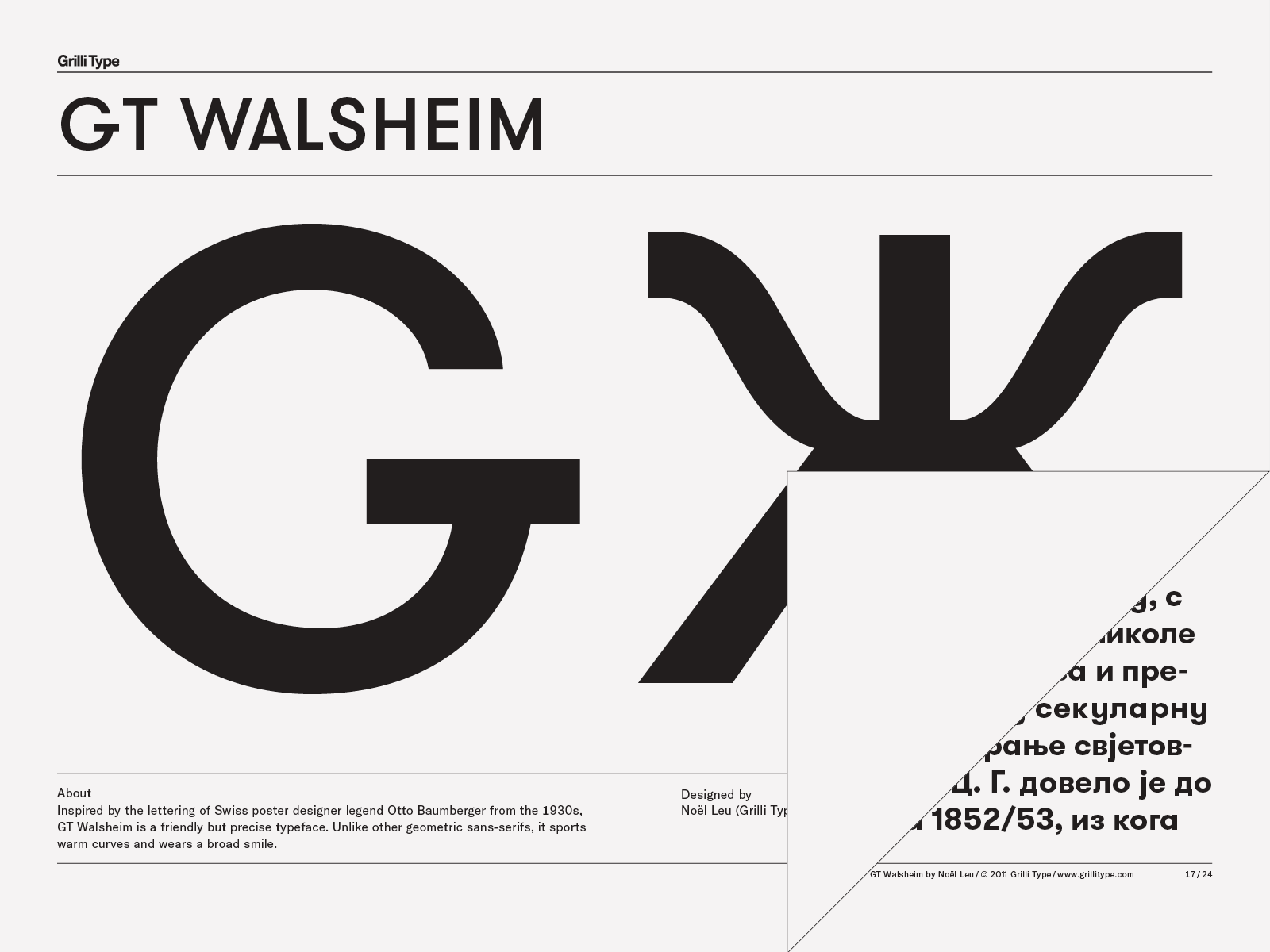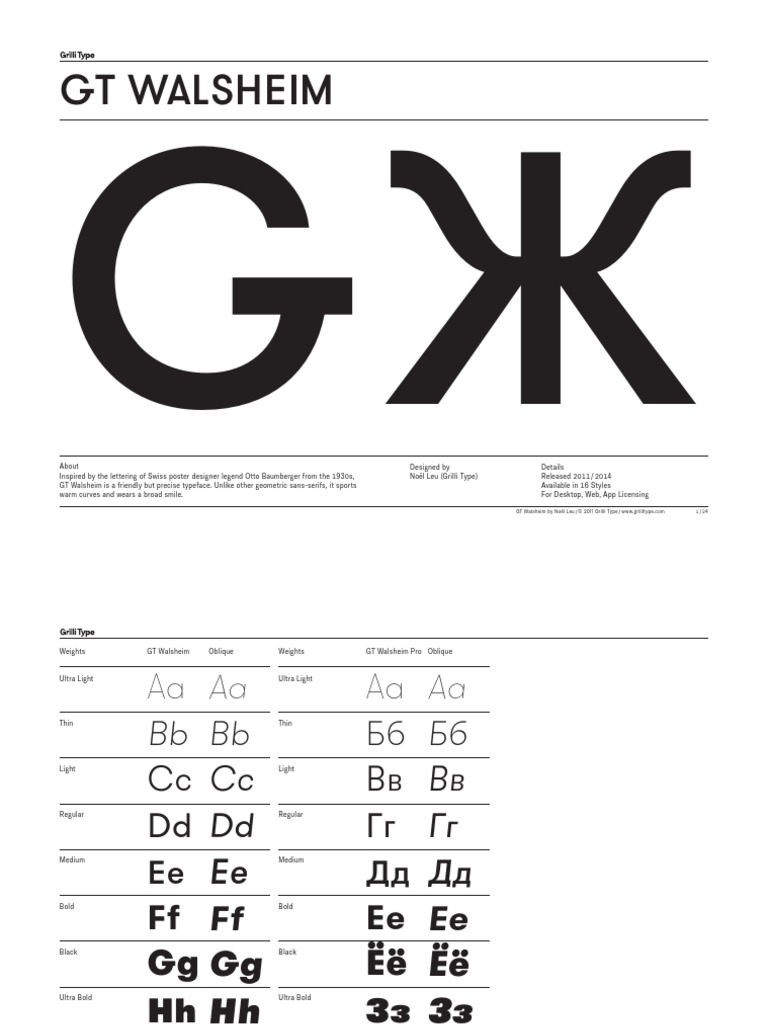
Gt Walsheim Font
Gt Walsheim Font - Web gt walsheim pro font family is a display typeface created by noel leu that can be used on any device. Web this website introduces the refreshed gt walsheim typeface family and highlights baumberger’s beautiful poster designs. Inspired by the lettering of swiss poster designer legend. Inspired by the lettering of swiss poster designer legend.
Inspired by the lettering of swiss poster designer legend. Web this website introduces the refreshed gt walsheim typeface family and highlights baumberger’s beautiful poster designs. Web gt walsheim pro font family is a display typeface created by noel leu that can be used on any device.
Inspired by the lettering of swiss poster designer legend. Web gt walsheim pro font family is a display typeface created by noel leu that can be used on any device. Inspired by the lettering of swiss poster designer legend. Web this website introduces the refreshed gt walsheim typeface family and highlights baumberger’s beautiful poster designs.
Inspired by the lettering of swiss poster designer legend. Web this website introduces the refreshed gt walsheim typeface family and highlights baumberger’s beautiful poster designs. Web gt walsheim pro font family is a display typeface created by noel leu that can be used on any device. Inspired by the lettering of swiss poster designer legend.
Web gt walsheim pro font family is a display typeface created by noel leu that can be used on any device. Web this website introduces the refreshed gt walsheim typeface family and highlights baumberger’s beautiful poster designs. Inspired by the lettering of swiss poster designer legend. Inspired by the lettering of swiss poster designer legend.
Web gt walsheim pro font family is a display typeface created by noel leu that can be used on any device. Inspired by the lettering of swiss poster designer legend. Web this website introduces the refreshed gt walsheim typeface family and highlights baumberger’s beautiful poster designs.
Web this website introduces the refreshed gt walsheim typeface family and highlights baumberger’s beautiful poster designs. Inspired by the lettering of swiss poster designer legend. Web gt walsheim pro font family is a display typeface created by noel leu that can be used on any device.
Inspired by the lettering of swiss poster designer legend. Web this website introduces the refreshed gt walsheim typeface family and highlights baumberger’s beautiful poster designs. Web gt walsheim pro font family is a display typeface created by noel leu that can be used on any device. Inspired by the lettering of swiss poster designer legend.
Web gt walsheim pro font family is a display typeface created by noel leu that can be used on any device. Web this website introduces the refreshed gt walsheim typeface family and highlights baumberger’s beautiful poster designs. Inspired by the lettering of swiss poster designer legend. Inspired by the lettering of swiss poster designer legend.
Web gt walsheim pro font family is a display typeface created by noel leu that can be used on any device. Inspired by the lettering of swiss poster designer legend. Web this website introduces the refreshed gt walsheim typeface family and highlights baumberger’s beautiful poster designs. Inspired by the lettering of swiss poster designer legend.
Web this website introduces the refreshed gt walsheim typeface family and highlights baumberger’s beautiful poster designs. Inspired by the lettering of swiss poster designer legend. Web gt walsheim pro font family is a display typeface created by noel leu that can be used on any device. Inspired by the lettering of swiss poster designer legend.
Web gt walsheim pro font family is a display typeface created by noel leu that can be used on any device. Inspired by the lettering of swiss poster designer legend. Web this website introduces the refreshed gt walsheim typeface family and highlights baumberger’s beautiful poster designs.
Inspired By The Lettering Of Swiss Poster Designer Legend.
Web gt walsheim pro font family is a display typeface created by noel leu that can be used on any device. Inspired by the lettering of swiss poster designer legend. Web this website introduces the refreshed gt walsheim typeface family and highlights baumberger’s beautiful poster designs.